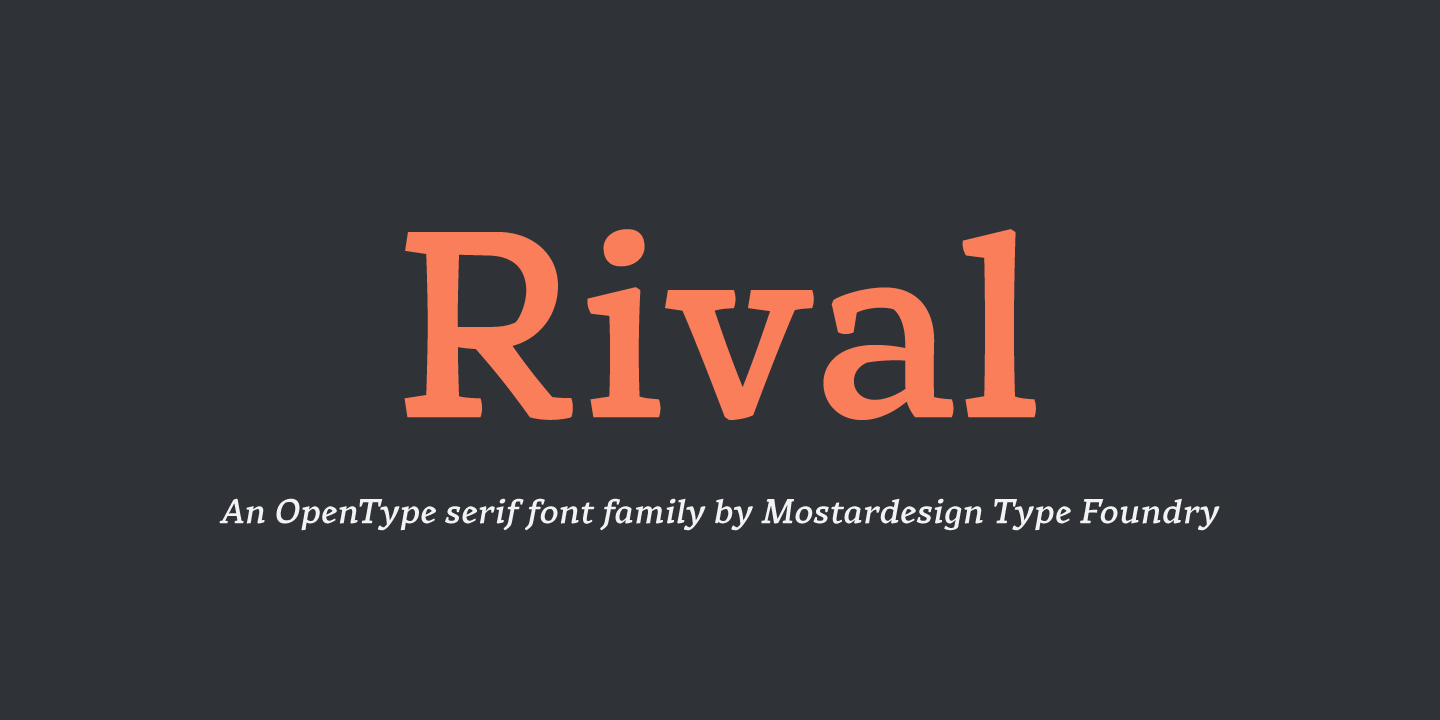
Rival Font Free Download is a modern, confident serif typeface that combines elegance with an unmistakable competitive edge. Please note that you must purchase this font for commercial use. It is available for free download for personal and testing purposes only.
You can use Rival Font in corporate branding, fashion magazines, luxury packaging, editorial layouts, personal portfolios, or upscale website headers. With its sharp serifs and stylish contrast, it’s perfect for making a bold yet refined statement.
What makes Rival so exciting is its powerful presence — it walks the fine line between classic sophistication and contemporary ambition. It’s the kind of font that turns a headline into a mission statement. Whether you’re branding a startup or crafting a premium lookbook, Rival makes sure your message stands tall and proud.
The Rival Font family includes refined styles like Rival Regular, Rival Italic, Rival Bold, and Rival Display, giving designers the freedom to craft layouts that feel both cohesive and captivating.